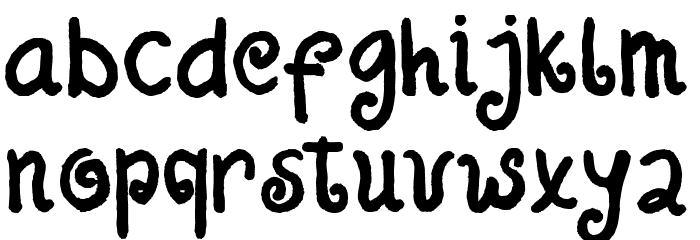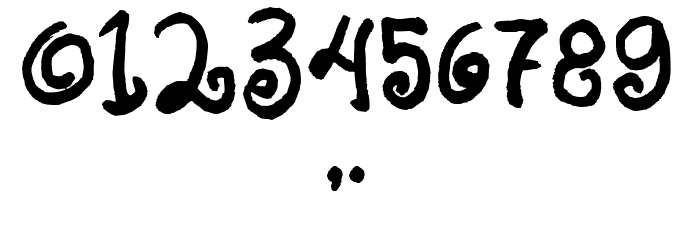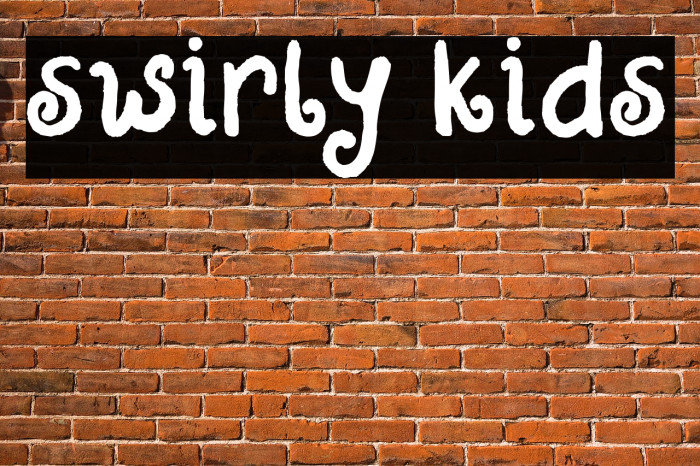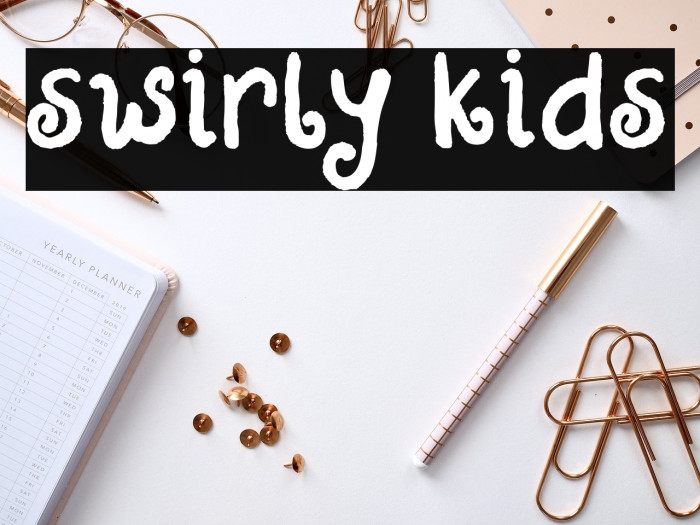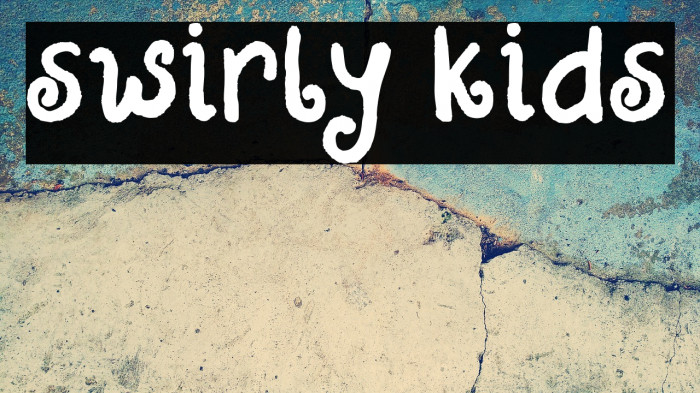
swirly kids Font
This playful and whimsical font features a hand-drawn style with a charming, childlike quality. The letters are characterized by their uneven strokes and swirly embellishments, giving them a lively and energetic appearance. The uppercase and lowercase letters maintain a consistent style, with rounded edges and a slightly irregular baseline that adds to the font's informal and friendly vibe. The numbers and special characters follow the same playful design, making this font suitable for creative and fun projects. Its unique style is perfect for capturing attention and conveying a sense of joy and creativity.
A playful, hand-drawn font with swirly, childlike characteristics.
- Proposed Projects: Ideal for children's books, playful branding, greeting cards, and creative posters.
- Overall Style: Playful
- Use Case: Headlines, Logos, Creative projects